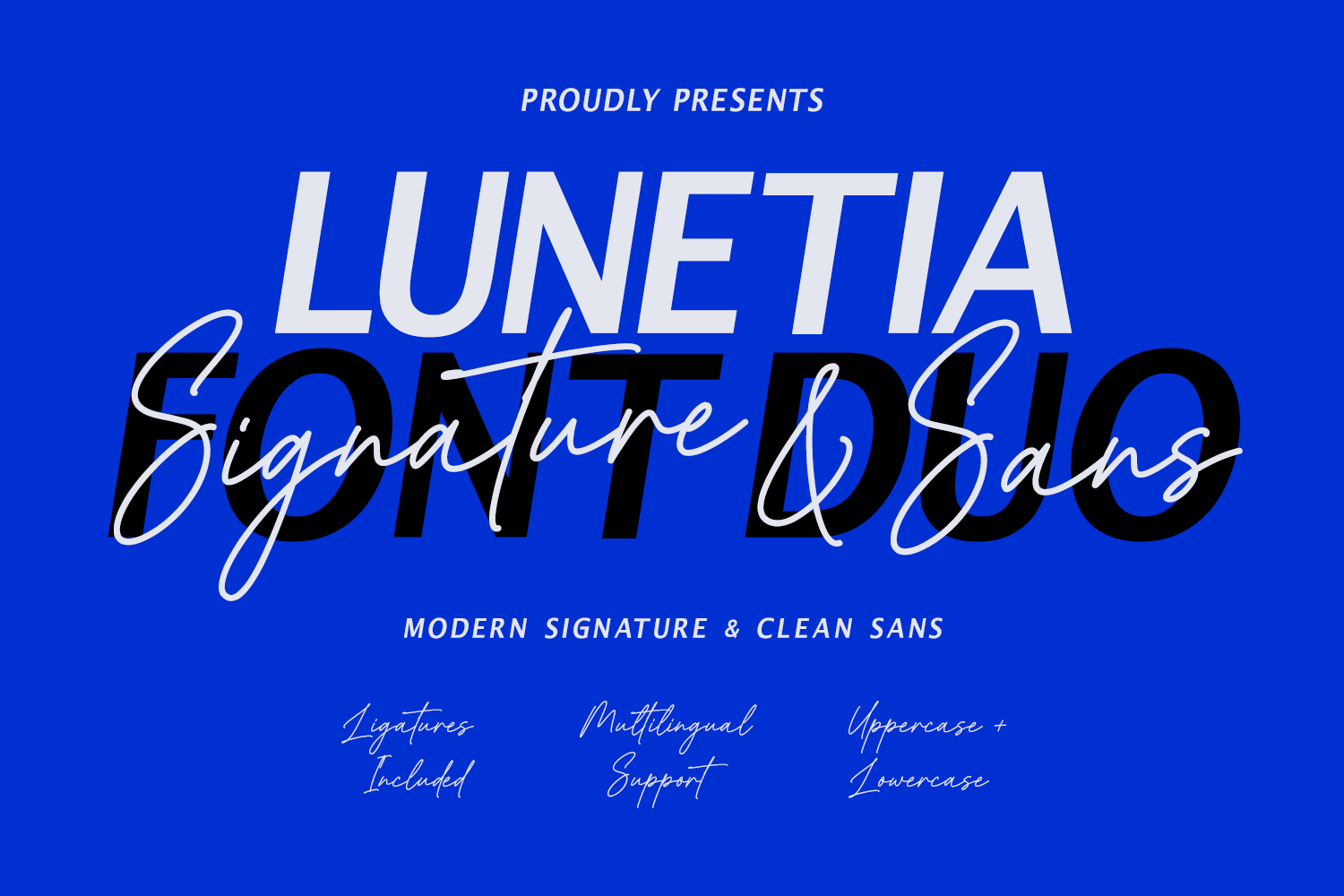
Lunetia Font Duo Modern Signature Clean Sans
Lunetia Font Duo brings together a sleek, bold sans-serif with an expressive, hand-drawn signature script. Designed for contrast and balance, this typeface pairing seamlessly blends clean geometric structure with fluid, organic lettering. It offers built-in ligatures, uppercase and lowercase characters, and full multilingual support to ensure maximum flexibility across digital and graphic projects.
Ideal for striking brand identities, editorial layouts, poster design, and logo crafting, Lunetia creates an immediate visual impact. The bold sans-serif provides strong readability for headings, while the flowing script adds an authentic human touch to accents, quotes, and signatures. Transform creative concepts into sophisticated visual statements with this versatile typographic combination.
- Ligatures for a natural handwriting flow